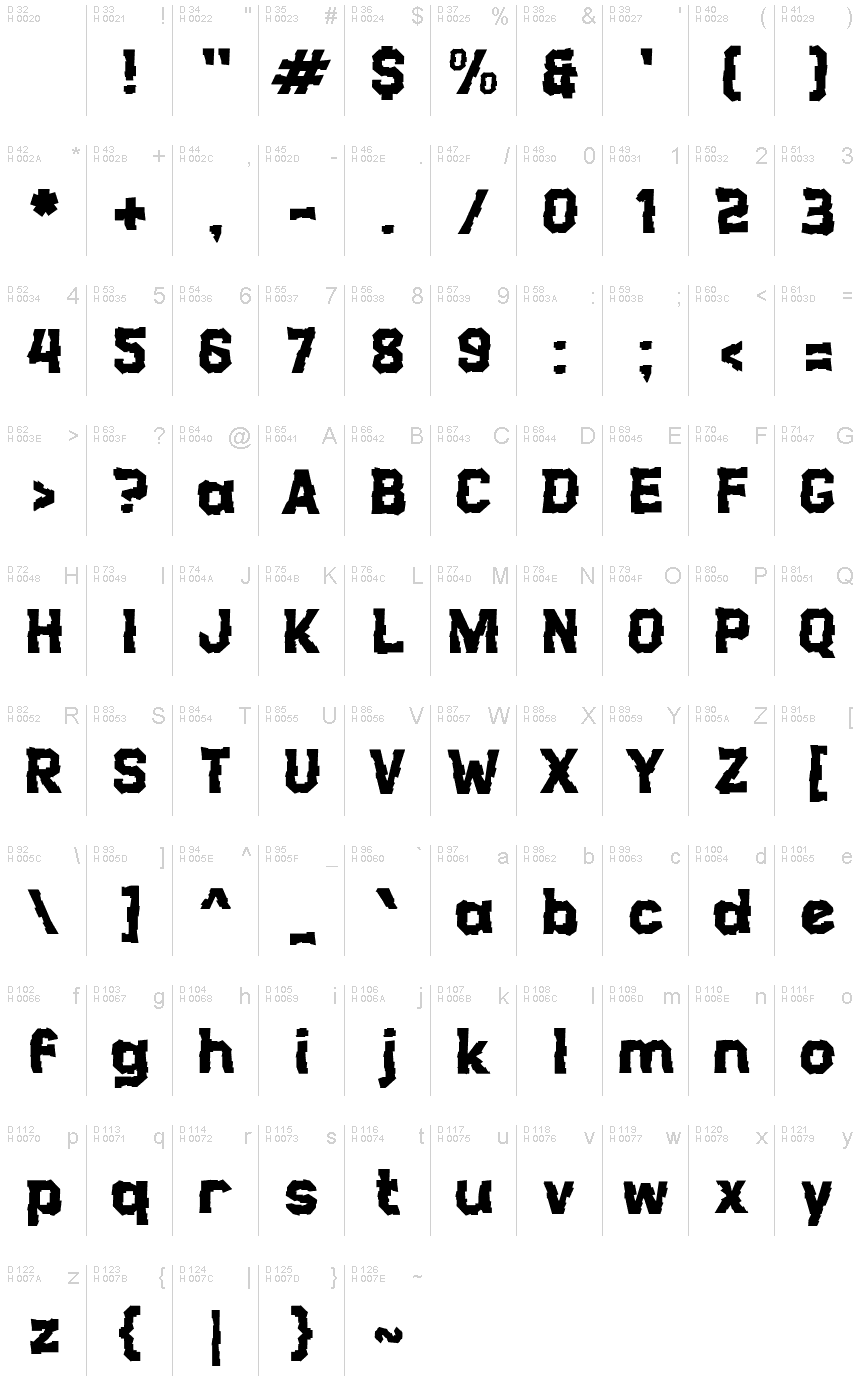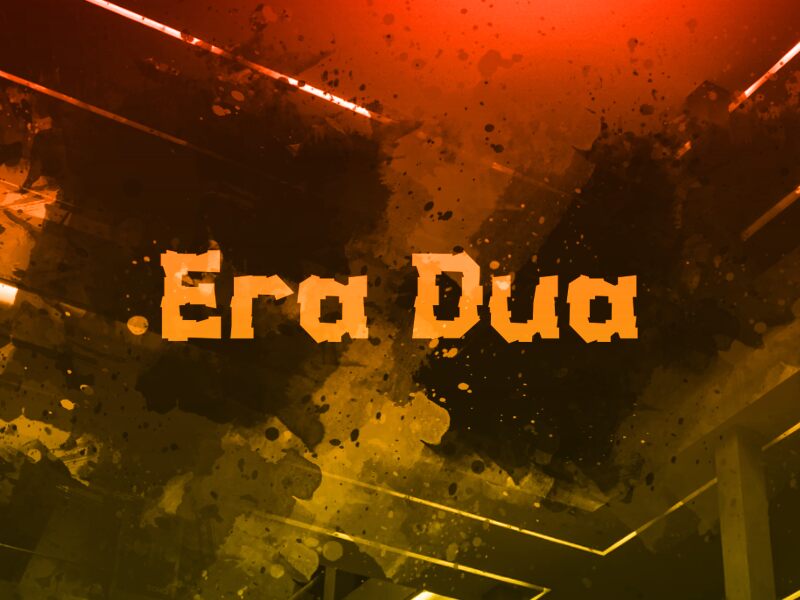
Era Dua
Era Dua by wep is a striking display font with a bold and distorted style. Its unique and eye-catching design makes it ideal for projects that aim to stand out from the crowd. With its semi-expanded width, Era Dua adds an extra touch of personality and versatility to your designs.
This font is perfect for attention-grabbing headlines, posters, album covers, and branding materials. Give your projects an edgy and unconventional look with Era Dua's bold distortion.